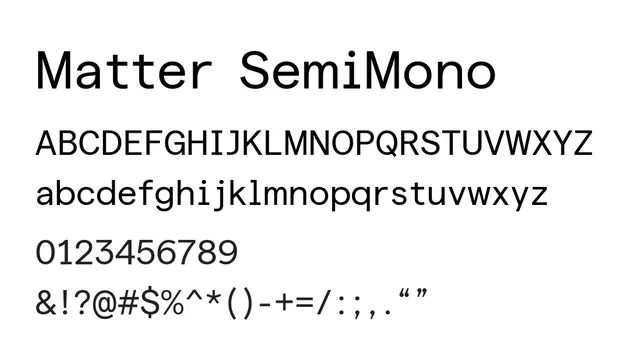
Matter Mono
A geometric monospace typeface with subtle slab details, designed for both code and UI use with excellent readability.
Perfect for code blocks, terminal interfaces, and technical documentation. The structured geometry and consistent character width make it reliable for programming environments. Also suitable for tabular data, pricing displays, and minimalist interface design.
Combines well with Matter sans variants or minimalist serif typefaces like IBM Plex Serif for editorial contexts.